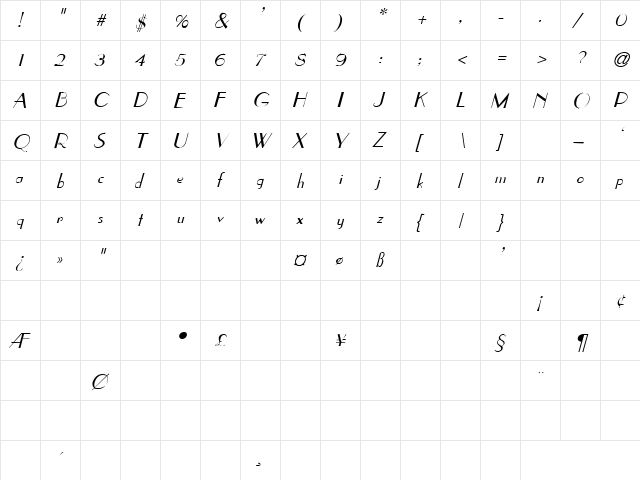
Coke 6 Italic Font Preview
Coke 6 Italic
Coke 6 Italic Font Details
Design Context for Coke 6 Typeface
Coke 6 offers clean, dependable letterforms without strong stylistic allegiance, making it a practical choice for designers who need flexibility. Its italic angle brings a sense of urgency and motion to the letterforms.